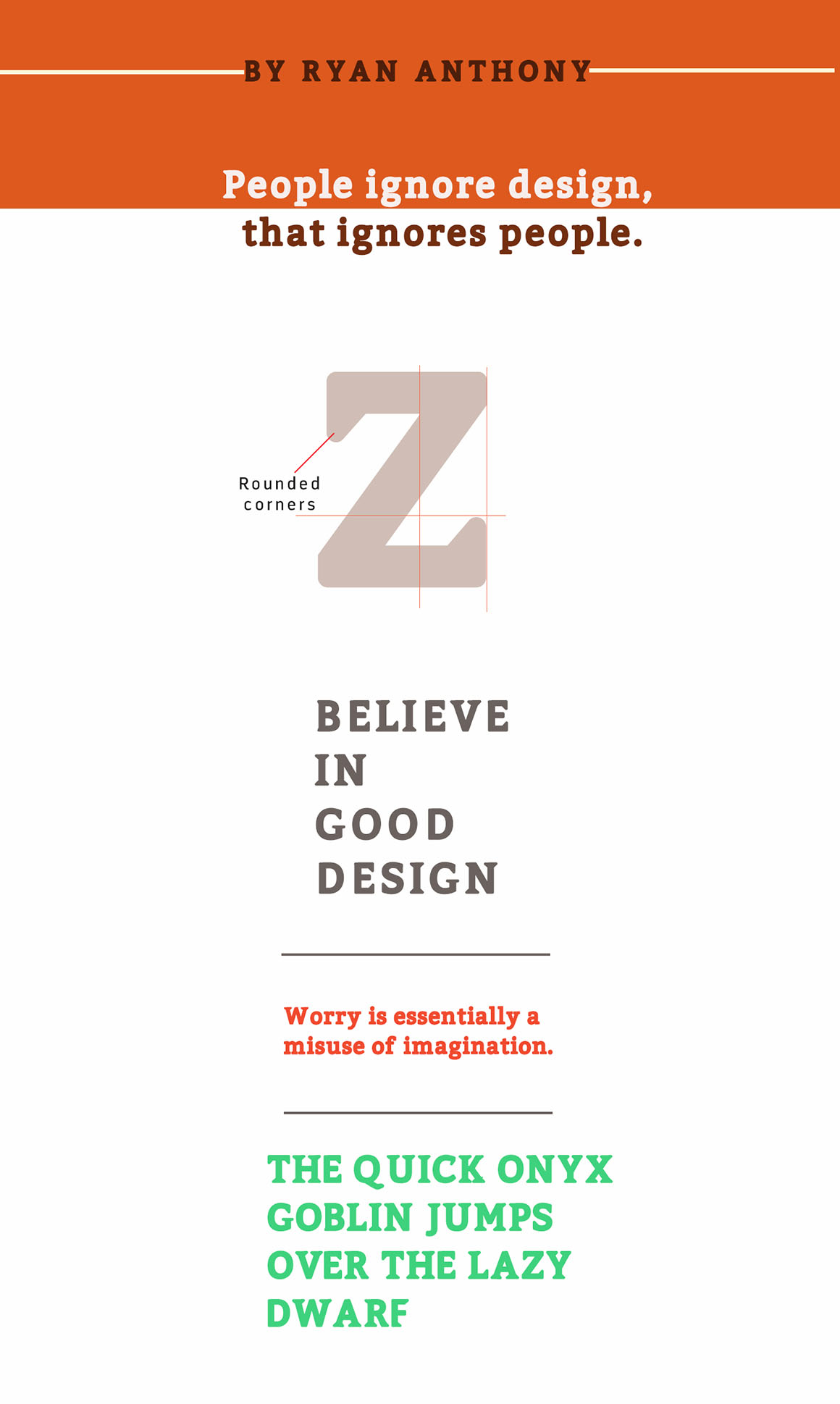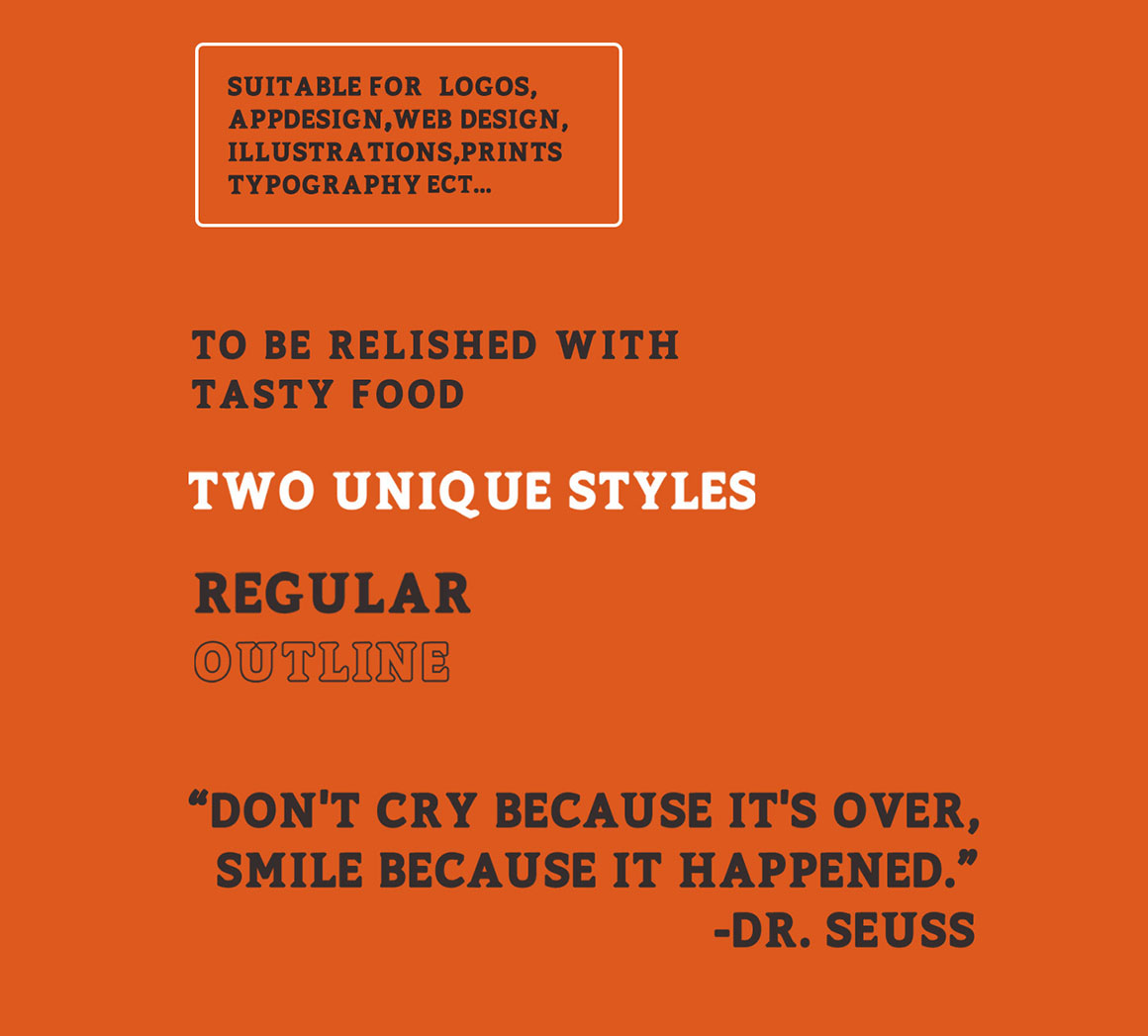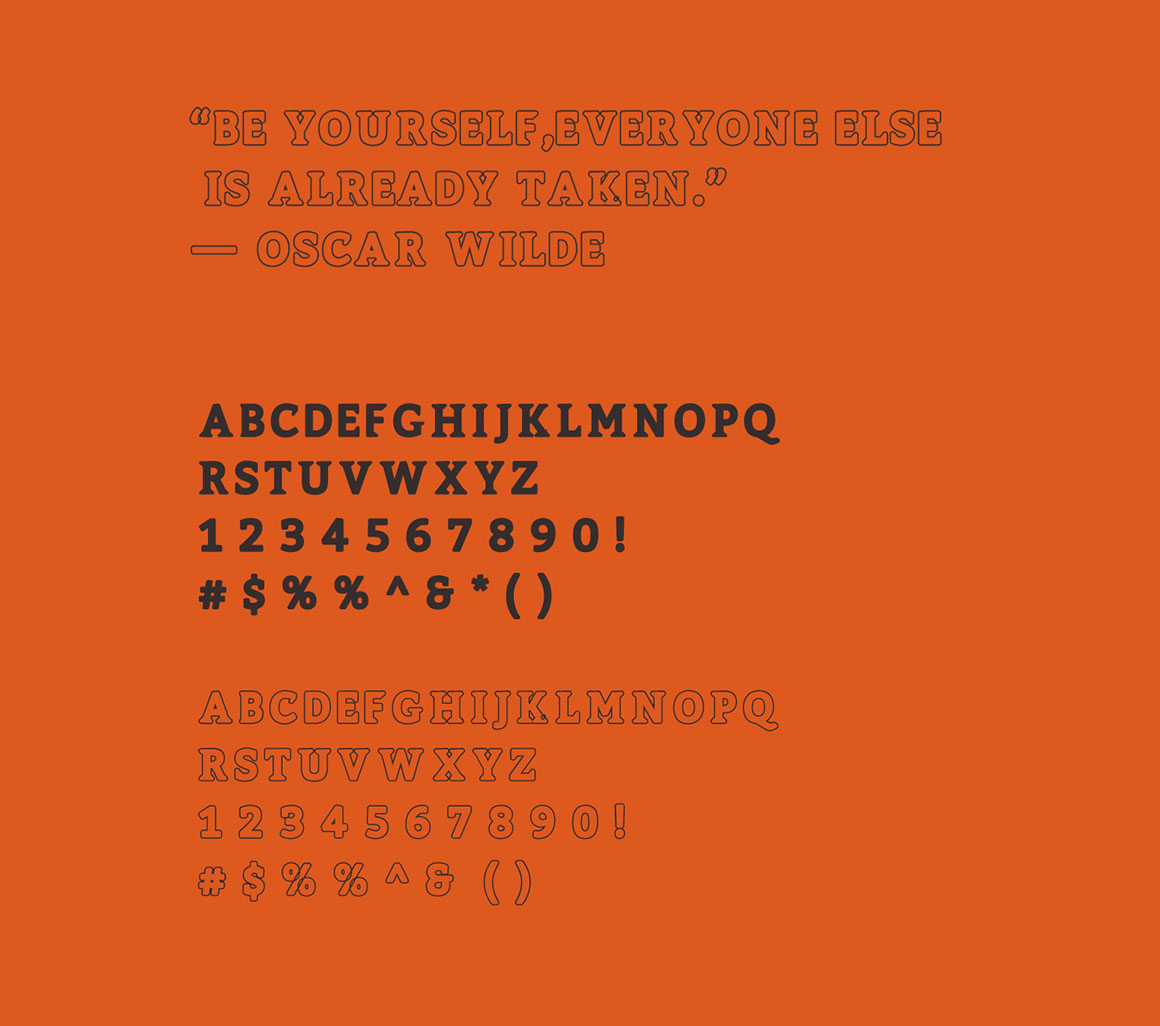
Carlson – Free Serif Font
This cool serif custom fonts is from Ryan Anthony. With unique retro/vintage style and great for your new projects. Download and enjoy 😉